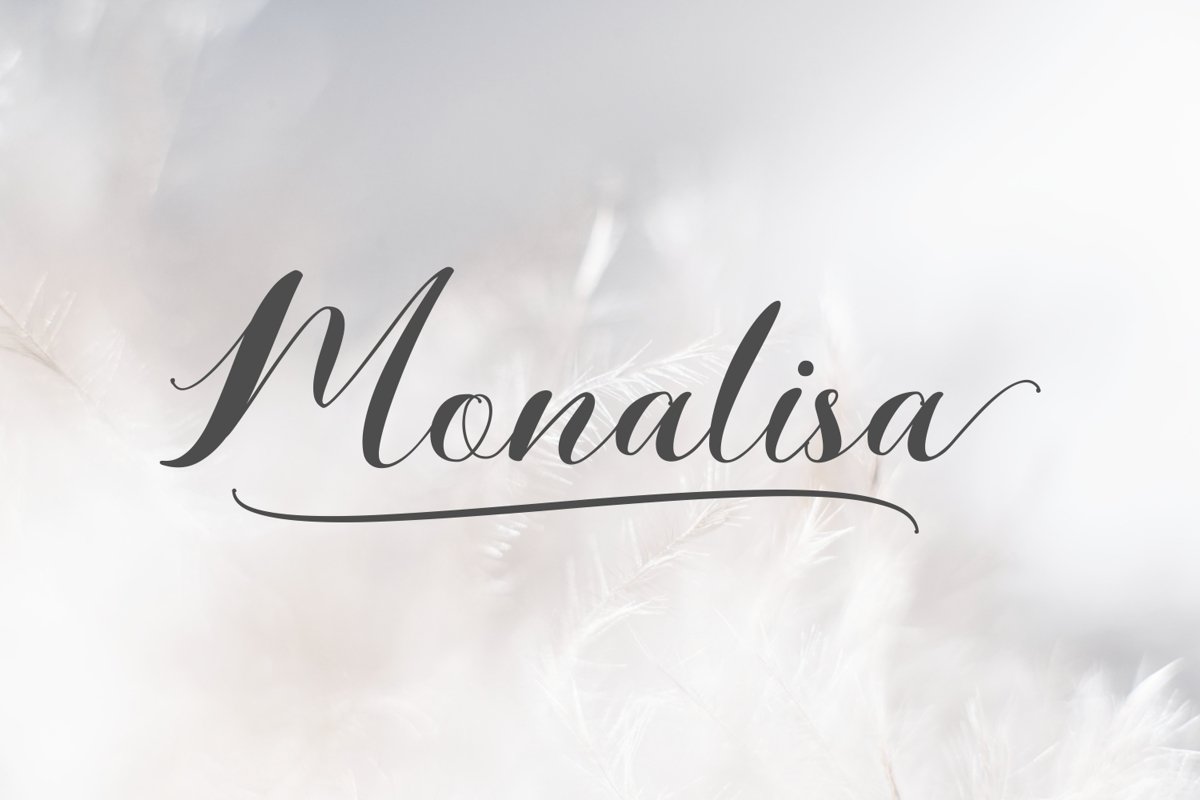
Monalisa // Script Calligraphy
Monalisa
**Monalisa**
Sweet and beautiful chic script that is suitable for branding, wedding invitations, and other romantic projects.
- Uppercases, Lowercases, Numerics, Symbols, Multilingual
- Alternates, Swashes, Ligatures